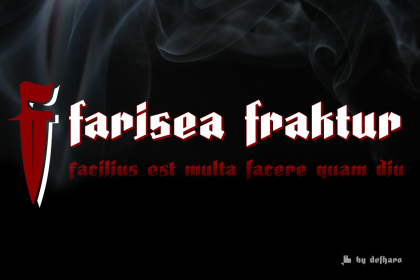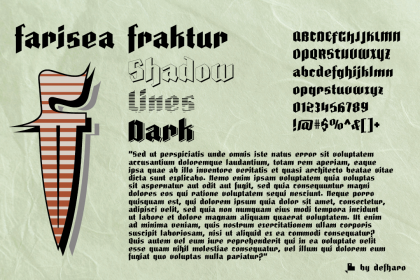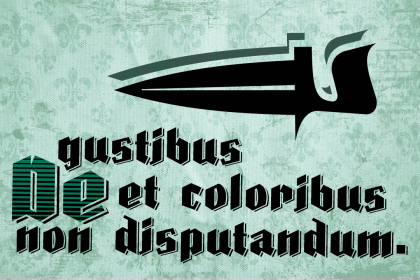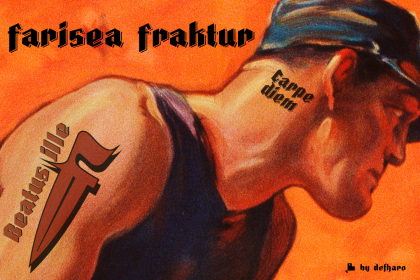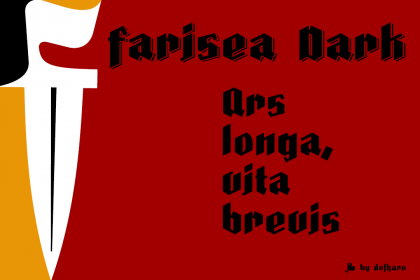
Farisea Fraktur & Layered Font
Fraktur is a typographic style of the Latin alphabet derived from the Gothic writing that arose at the beginning of the XVI century and was popularized in Germany, Northern Europe and the Baltic countries. These fonts are distinguished by their thick strokes and the angled profile produced by the pen. Farisea Fraktur is my modern version of this type of Fraktur fonts, without embellishments, the initial inclination is of 64 ° for the upper and lower ascending finials, it has a great contrast between antlers and a generous height of x, which gives the font in a square proportion.
On this occasion I offer 4 versions of the typography combinable by layers to create multicolored holders purely typographical. Today, this type of fonts continues to be used for the creation of diplomas, etc. also in some German-speaking press media, also having many followers among tattoo enthusiasts.